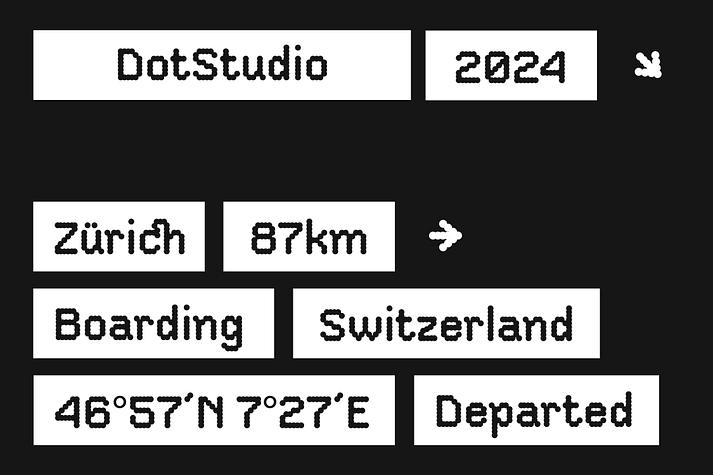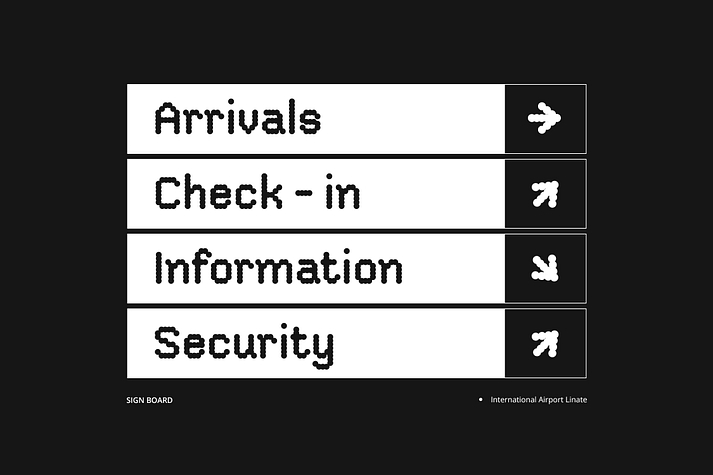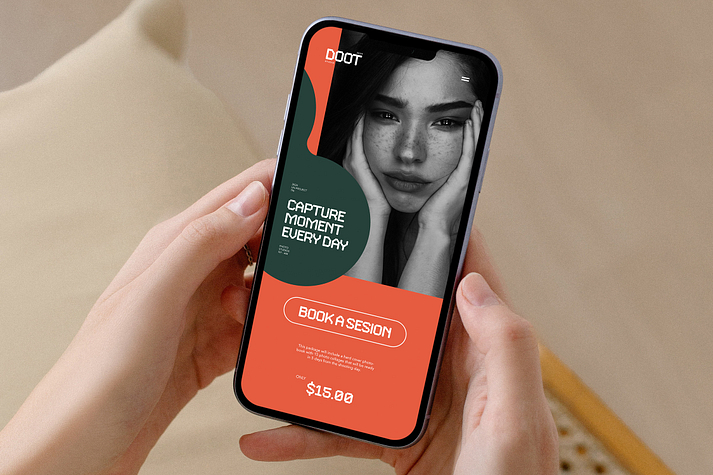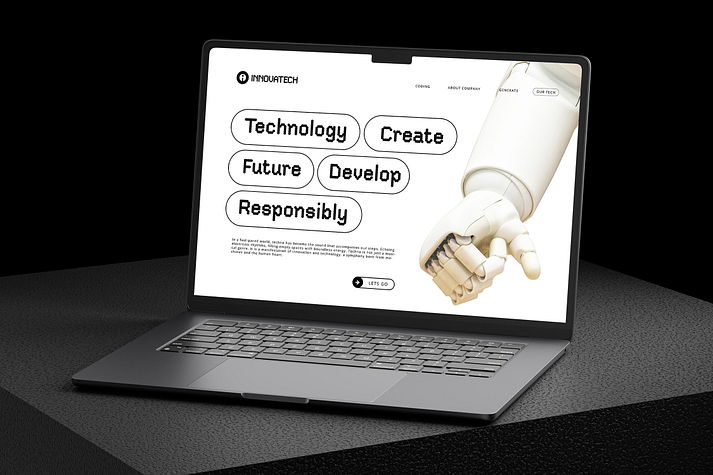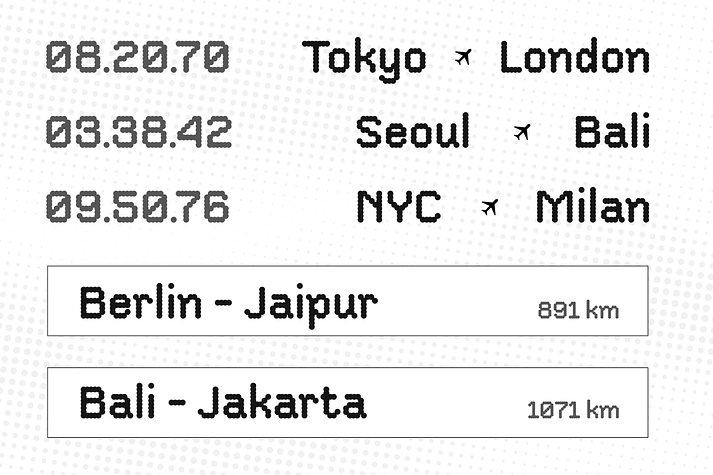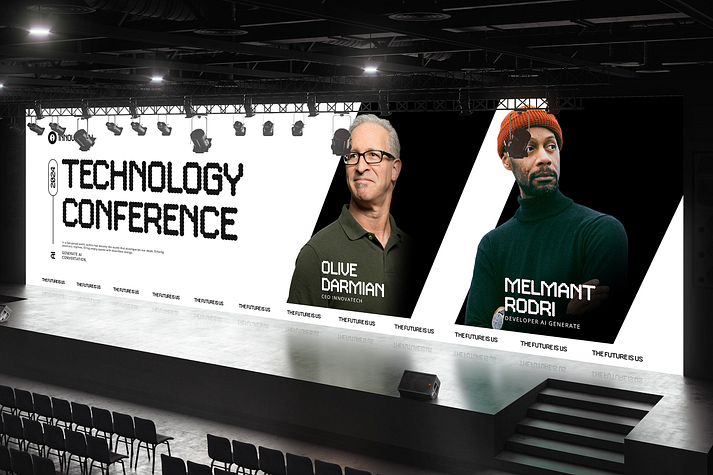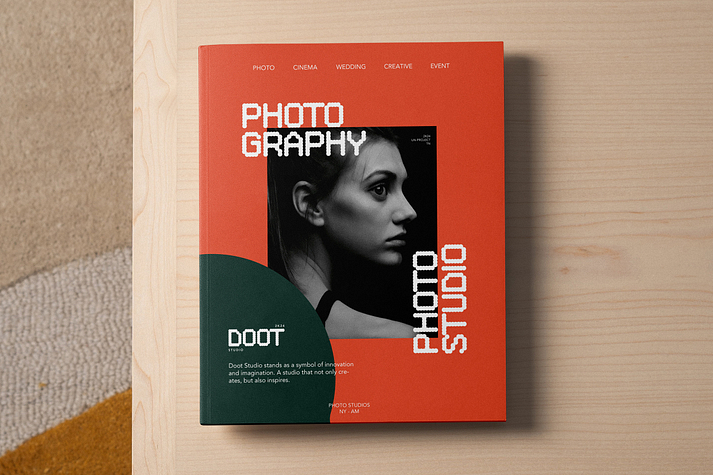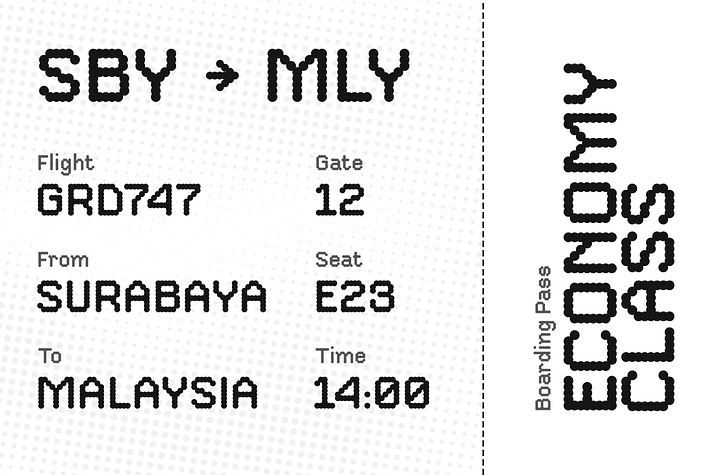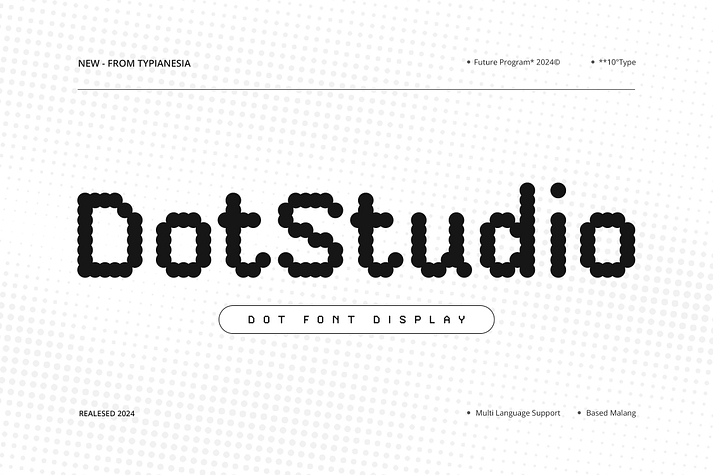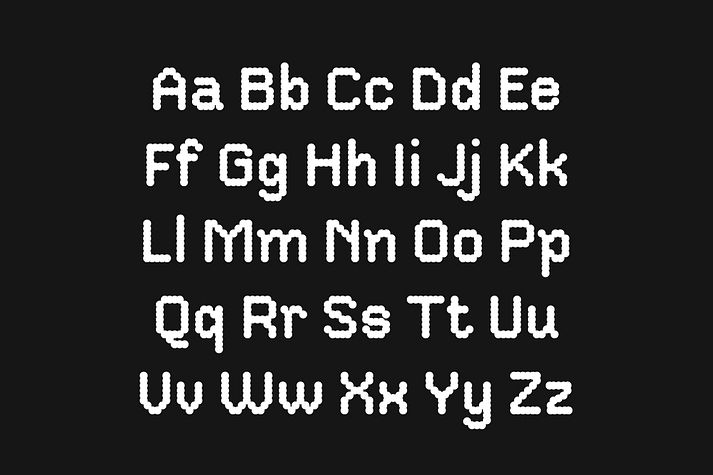
Dot Studio
Dot Studio is a font family published by Typia Nesia.
DotStudio - Dot Font Display - Modern Digital Futuristic Innovation Branding
Dotstudio is a modern and eye-catching Dot Font Display typeface, meticulously crafted for striking visual impact across various design applications. Its innovative design makes it perfect for modern digital and print applications, such as modern branding, logo design, headlines, posters, digital displays, and any project requiring a contemporary and futuristic eye-catching font. Comes with ligatures features to enhance your creative project, and inclusion of alternate characters, and multilingual support, for flexibility to customize and adapt the font to suit your specific design needs seamlessly. Moreover, its comprehensive character set encompasses uppercase, lowercase, punctuation, and numerals, ensuring versatility across various applications. Crafted with precision and expertise, DotStudio represents a fusion of contemporary design principles and typographic excellence. Its meticulous attention to detail and focus on readability make it a reliable choice for designers.